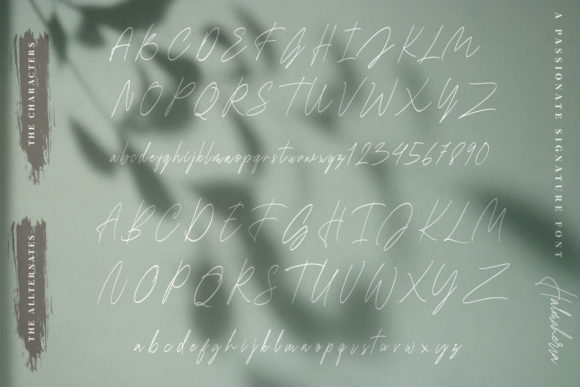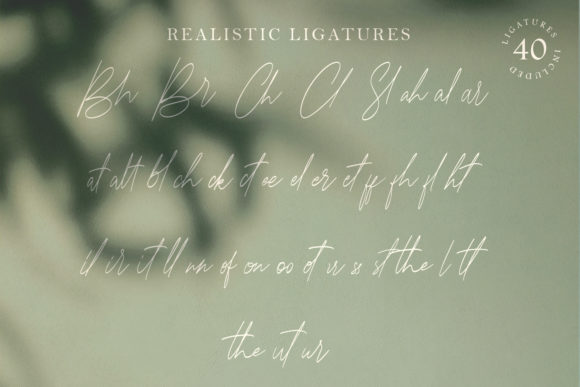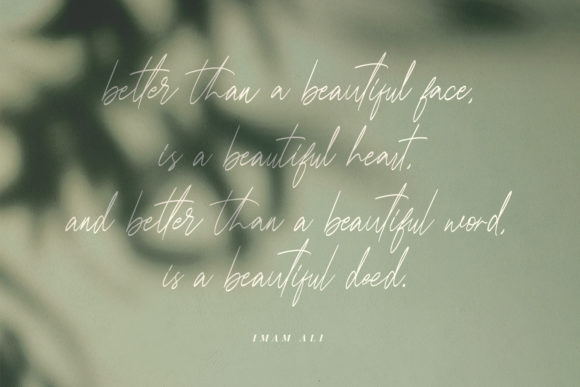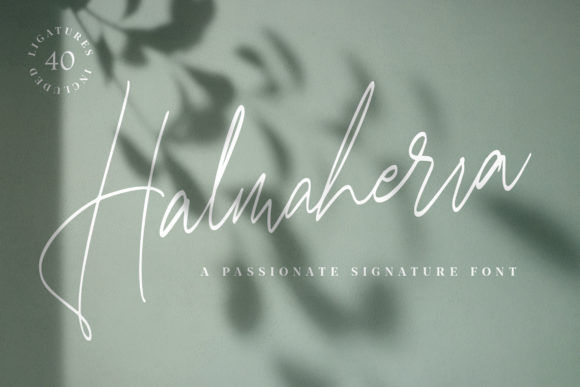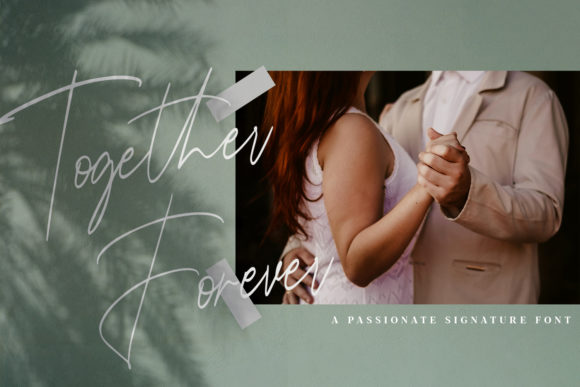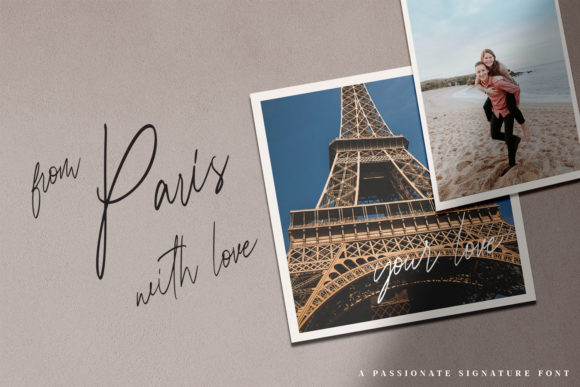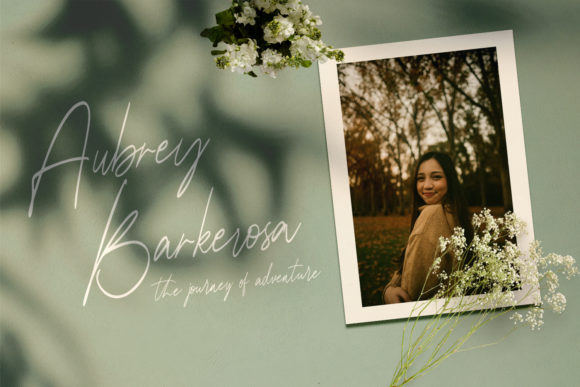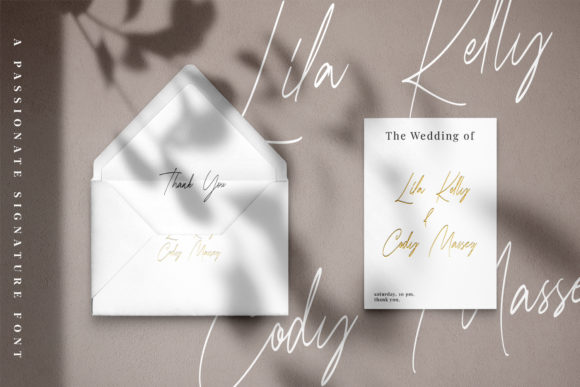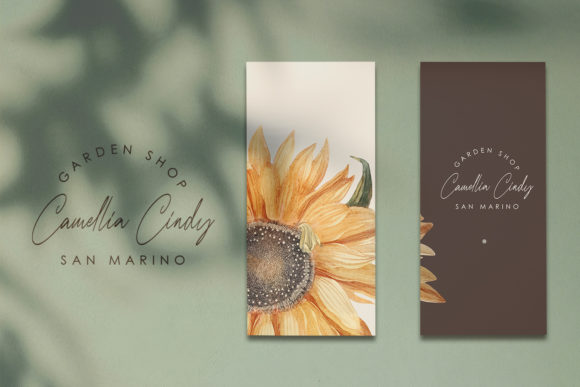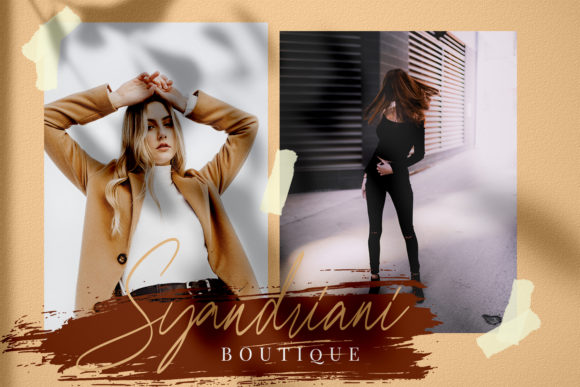
Halmaherra Font
About Halmaherra Font
Halmaherra is a passionate and charming handwritten font with an authentic feel. It will add a sophisticated touch to any design project!